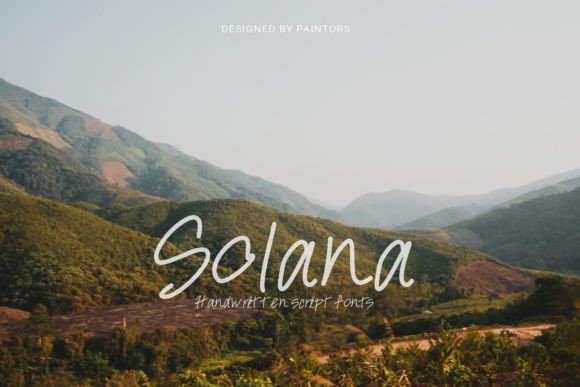
Meet Solana Font, the captivating script that exudes warmth and approachability, the perfect choice for heartfelt messages and personal touches.
Journey into the world of Solana, a script font with a magnetic charm that captures hearts and imaginations. Its gentle curves and soft lines dance across your designs, creating a warm and welcoming tone that resonates with your audience. Picture graceful invitations that extend a heartfelt welcome, personal messages that resonate with sincerity, and branding materials that radiate a genuine connection.
With Solana, your words are infused with a unique charm, a touch of elegance, and a dash of warmth. Its meticulously crafted characters are like little works of art, adding a personal touch to every project. Whether you're a designer crafting a heartwarming logo, a blogger sharing heartfelt stories, or a creative professional seeking an authentic touch, Solana is your muse.
Solana is not just a font; it's an emotion, a feeling, a connection. It transforms your designs into heartfelt expressions, reaching out to your audience and forging a genuine bond. So, embrace the magic of Solana, let its gentle curves guide your creativity, and weave stories that touch hearts and leave a lasting impression.